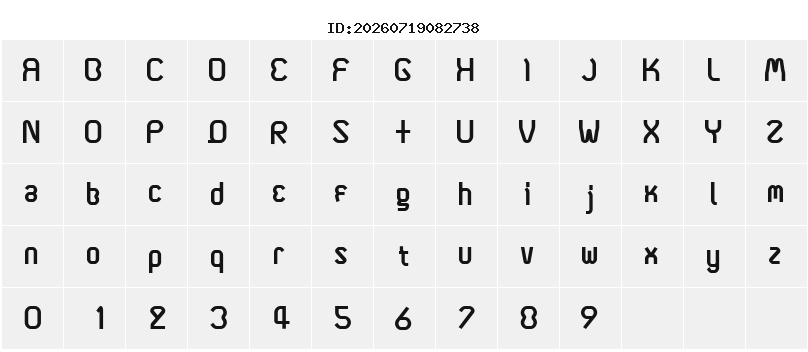
Coma2 Preview
• Font Name: Coma2
• Full Font Name: Coma2-Bold
• PostScript Name: Coma2-Bold
About Coma2.ttf
Coma2.ttf is a modern, elegant sans-serif font designed for ultimate readability and visual harmony. Perfect for branding, headlines, web design, and print materials.